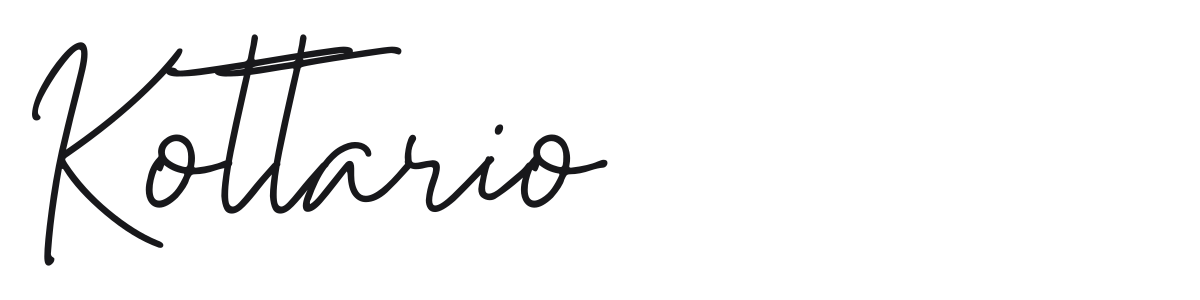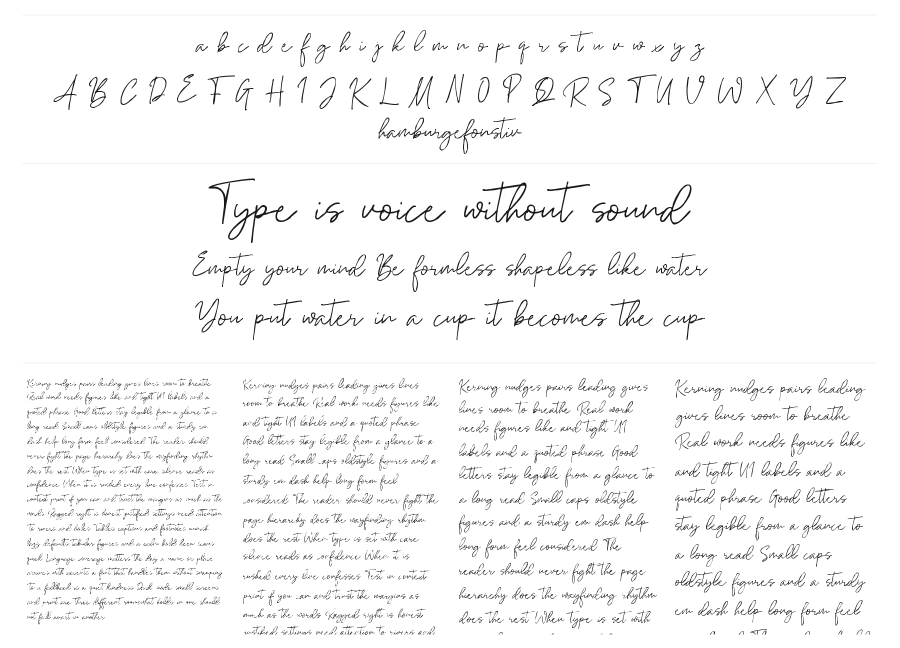
Kottario
Kottario is a flowing casual script with thin monoweight strokes and sweeping long-tail connections that give it an effortless handwritten feel. The generous ascenders and descenders create a loose, airy rhythm that reads as relaxed elegance rather than formal calligraphy. It works well for logos, invitations, and packaging where a light contemporary script sets the tone.